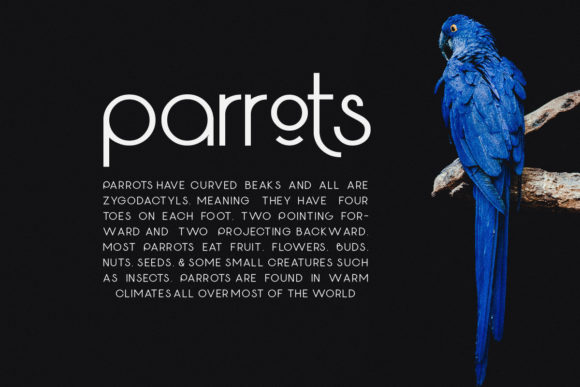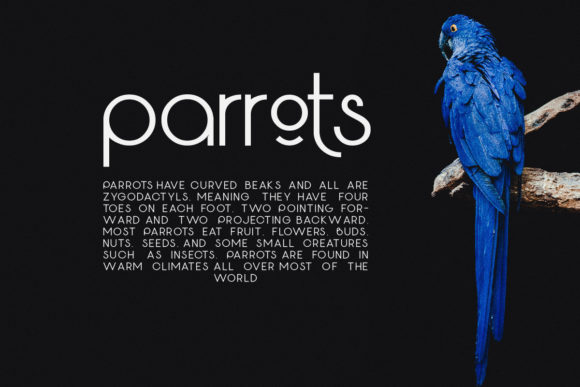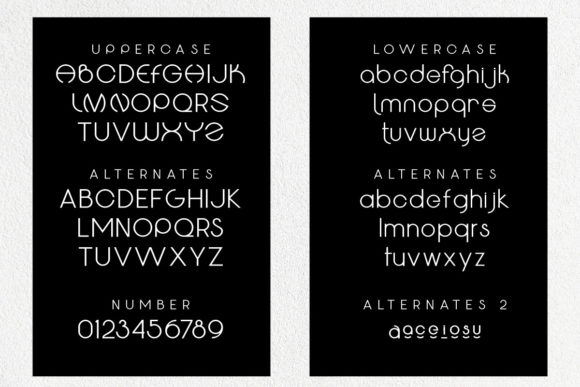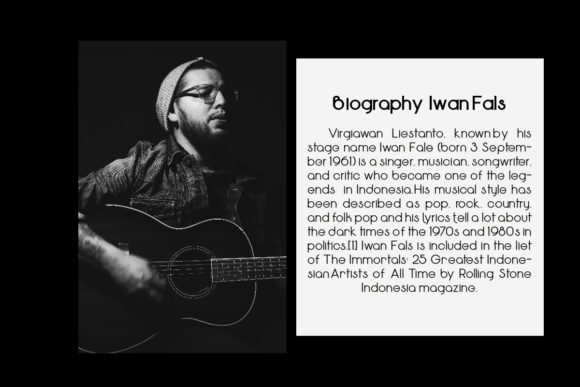
Introducing Geotype Font: A Modern Sans Serif Typeface
In the world of typography, a good font can make all the difference in the visual appeal of a design. For designers and crafters, finding the perfect typeface can be a daunting task. However, if you’re looking for a clean, modern, and highly legible font, look no further than Geotype Font. In this article, we’ll explore the features and benefits of Geotype, and why it’s a must-have for any design project.
What is Geotype Font?
Geotype is a clean sans serif typeface that draws inspiration from circle shapes. Its simple yet significant design makes it an excellent choice for a wide range of applications, from digital designs to print materials. The font’s crisp edges and modern touches give it a fresh and contemporary feel that’s sure to elevate your designs.
Key Features of Geotype Font
- Clean and Simple Design: Geotype’s sans serif design makes it easy to read and understand, even at small font sizes.
- Inspired by Circle Shapes: The font’s circular inspiration gives it a unique and distinctive look that’s both modern and sophisticated.
- Crisp Edges and Modern Touches: Geotype’s crisp edges and modern touches add a level of sophistication and elegance to your designs.
- PUA Encoded: Geotype is PUA (Private Use Area) encoded, which means you can access all of the glyphs and swashes with ease. This makes it easy to customize your designs and add unique touches.
- Optimal Legibility: Geotype was designed with legibility in mind, making it perfect for use in a wide range of applications, from body text to headings.
Benefits of Using Geotype Font
So why choose Geotype Font for your design projects? Here are just a few benefits of using this versatile typeface:
- Versatility: Geotype is a highly versatile font that can be used in a wide range of applications, from digital designs to print materials.
- Legibility: Geotype’s clean and simple design makes it easy to read and understand, even at small font sizes.
- Customization: With its PUA encoding, Geotype makes it easy to customize your designs and add unique touches.
- Modern and Sophisticated: Geotype’s modern and sophisticated design makes it perfect for designers and crafters who want to add a touch of elegance to their designs.
Who is Geotype Font for?
Geotype Font is perfect for a wide range of designers and crafters, including:
- Graphic Designers: Geotype is a great choice for graphic designers who need a clean and modern font for their designs.
- Web Designers: Geotype’s legibility and clean design make it perfect for use in web design.
- Crafters: Geotype is a great choice for crafters who want to add a touch of elegance to their projects.
- Signmakers: Geotype’s bold and modern design makes it perfect for use in signmaking.
In conclusion, Geotype Font is a modern sans serif typeface that’s perfect for designers and crafters who want a clean, legible, and highly customizable font. With its PUA encoding, crisp edges, and modern touches, Geotype is a versatile font that can be used in a wide range of applications. Whether you’re a graphic designer, web designer, crafter, or signmaker, Geotype is a great choice for any design project.